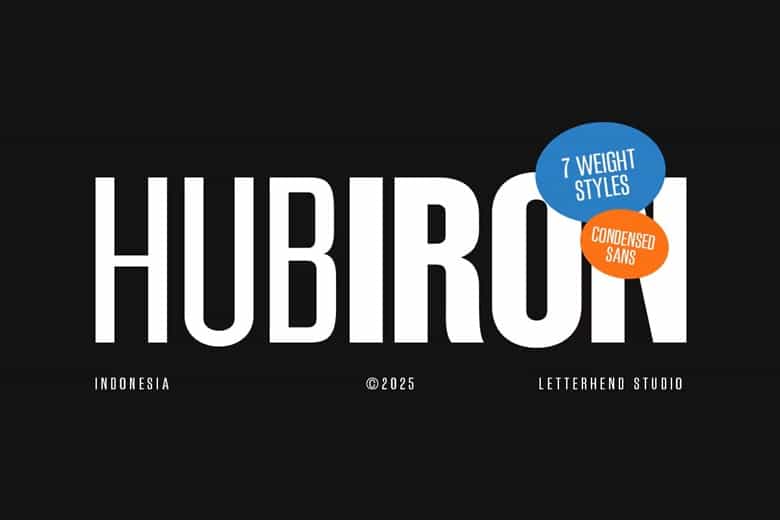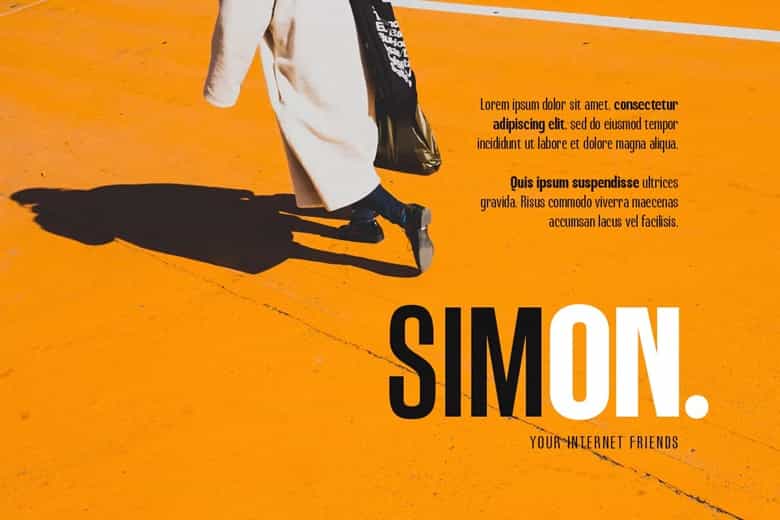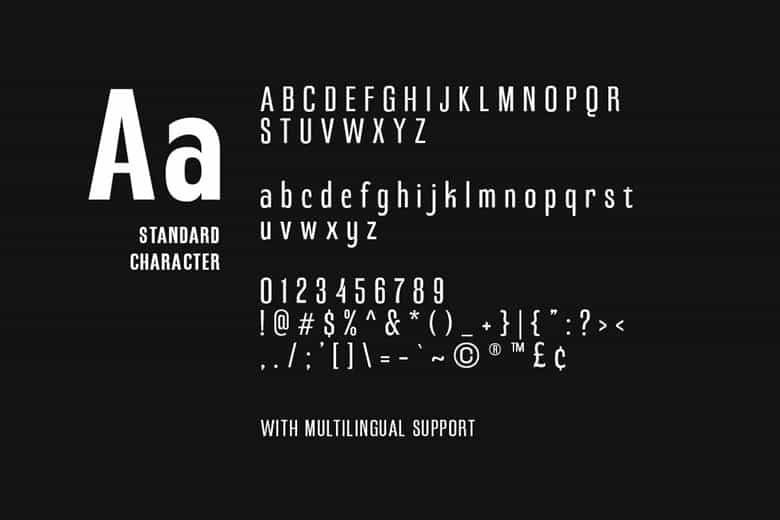
Hubiron is a new condensed sans serif typeface that is rather vivid and original and great for conveying a massive impact. Perhaps because of its sharp lines, extended height and rather geometrical look, this typeface is best used for such designs that have to be rather contemporary and authoritative at the same time. It is available in 7 weight styles, making it suitable for different designs that the designer intends to develop.